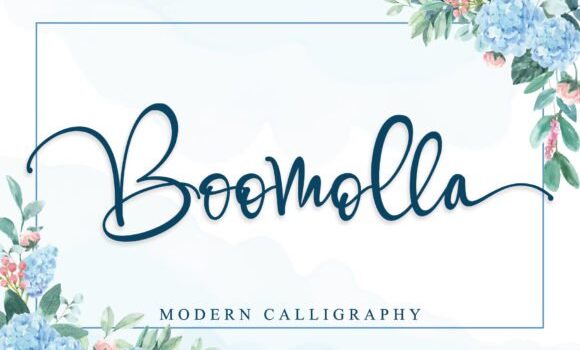
boomolla
Boomolla Font – Free Download Introduction to Boomolla Font Boomolla is a beautiful handwritten font with a modern look. 📸 Preview Gallery 6 images 📌 Product Name Boomolla Font 👤 Author Stefani Letter 📂 Category Explore ⬇️ Download Boomolla Font